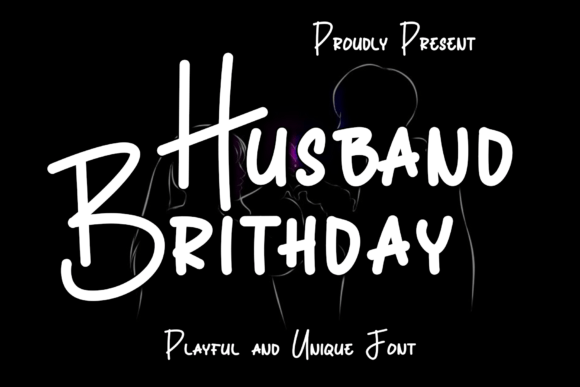
When Handwriting Meets Design
Have you ever been stuck trying to convey a personal message through a generic font, only to feel like it’s just not quite right? We’ve all been there – desperately searching for the perfect balance between style and authenticity. That’s where the magic of handwritten fonts comes in, and one that stands out is the Husband Brithday Font.
This casual, approachable font radiates warmth and captures the charm of everyday handwriting with smooth strokes, relaxed curves, and naturally balanced letterforms. Whether you’re creating quotes, branding, packaging, or social media posts, the Husband Brithday Font adds a personal and friendly touch to any design. As a designer, you know how valuable it is to have a versatile font that delivers both readability and charm – and the Husband Brithday Font delivers just that.
Husband Birthday Font Key Features
- Unique Characteristics: The font features a playful, handwritten style with a mix of bold and cursive elements, perfect for adding a personal touch to birthday cards and invitations.
Honest Review: Husband Birthday Font
Overall, I was excited to dive into the “Husband Birthday Font” and see what it had to offer. Here are my thoughts:
- The font is playful and fun, perfect for a husband’s birthday celebration.
- The uppercase letters are bold and attention-grabbing, making them ideal for headings and titles.
- The font is highly customizable, allowing you to adjust the size, color, and style to fit your needs.
- The lowercase letters can be a bit too thin, making them harder to read at smaller font sizes.
- The font may not be suitable for formal or professional use, as it’s a bit too casual.
While the “Husband Birthday Font” has its limitations, I think it’s a great choice for personal or social use. The playful and fun design makes it perfect for birthday celebrations, and the high level of customization is a big plus. However, users who need a more formal or professional font may want to look elsewhere.
The Husband Birthday Font is perfect for creating personalized birthday invitations, social media posts, and greeting cards. To get the most out of it, use it in combination with other design elements, such as images and graphics. Experiment with different font sizes, colors, and styles to create a unique and eye-catching design.